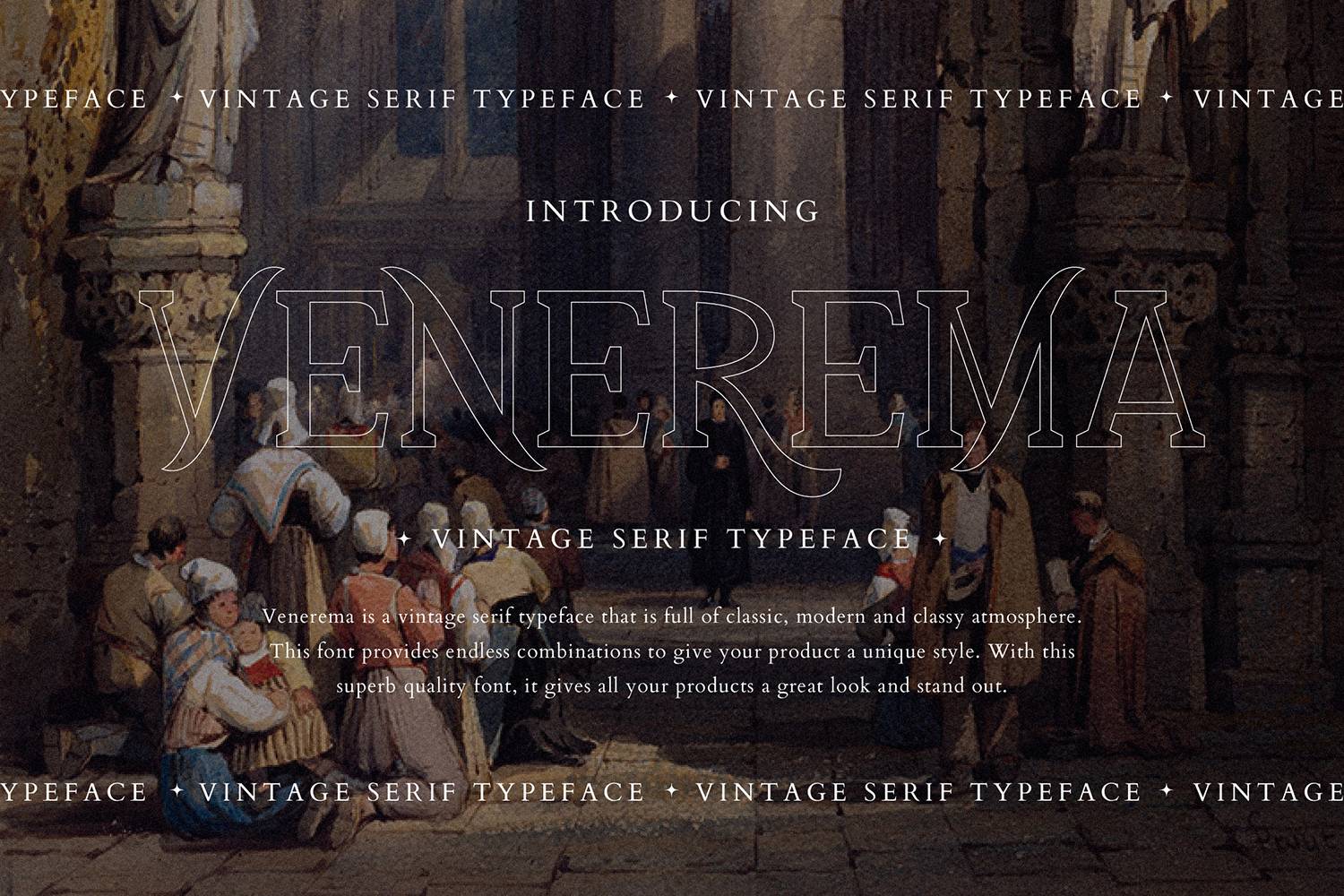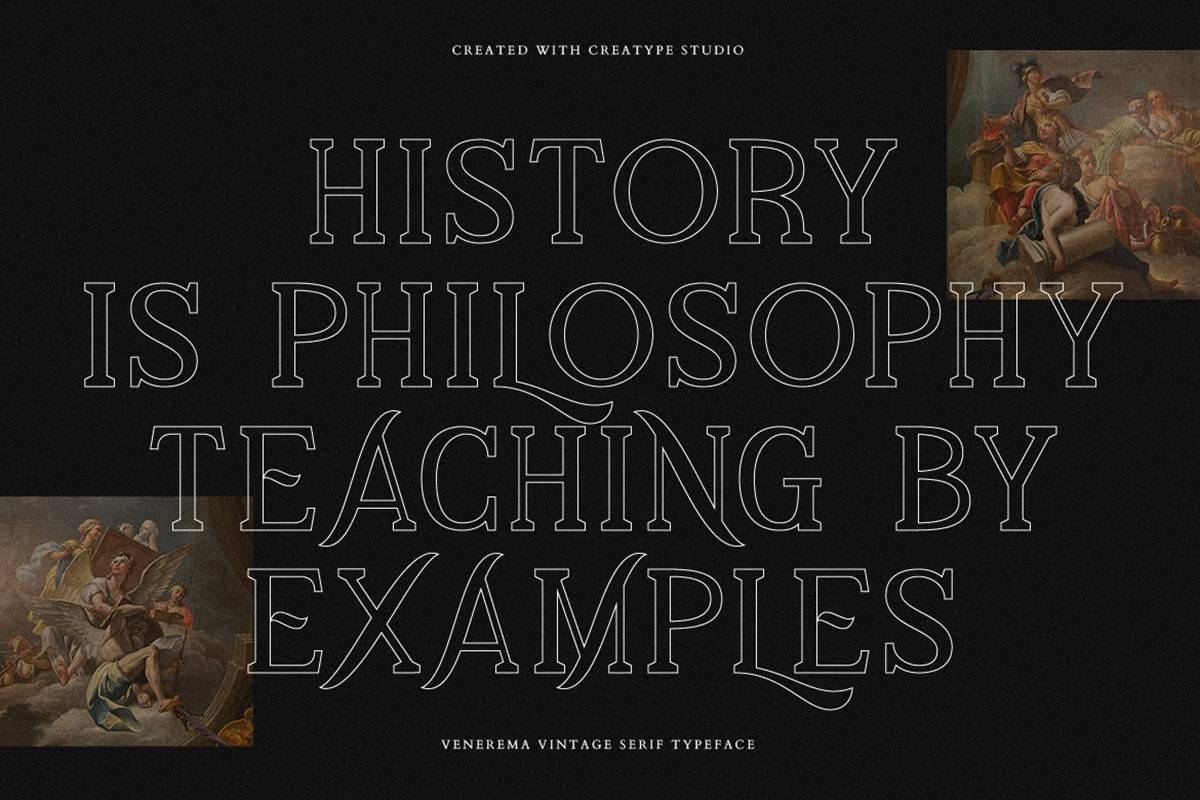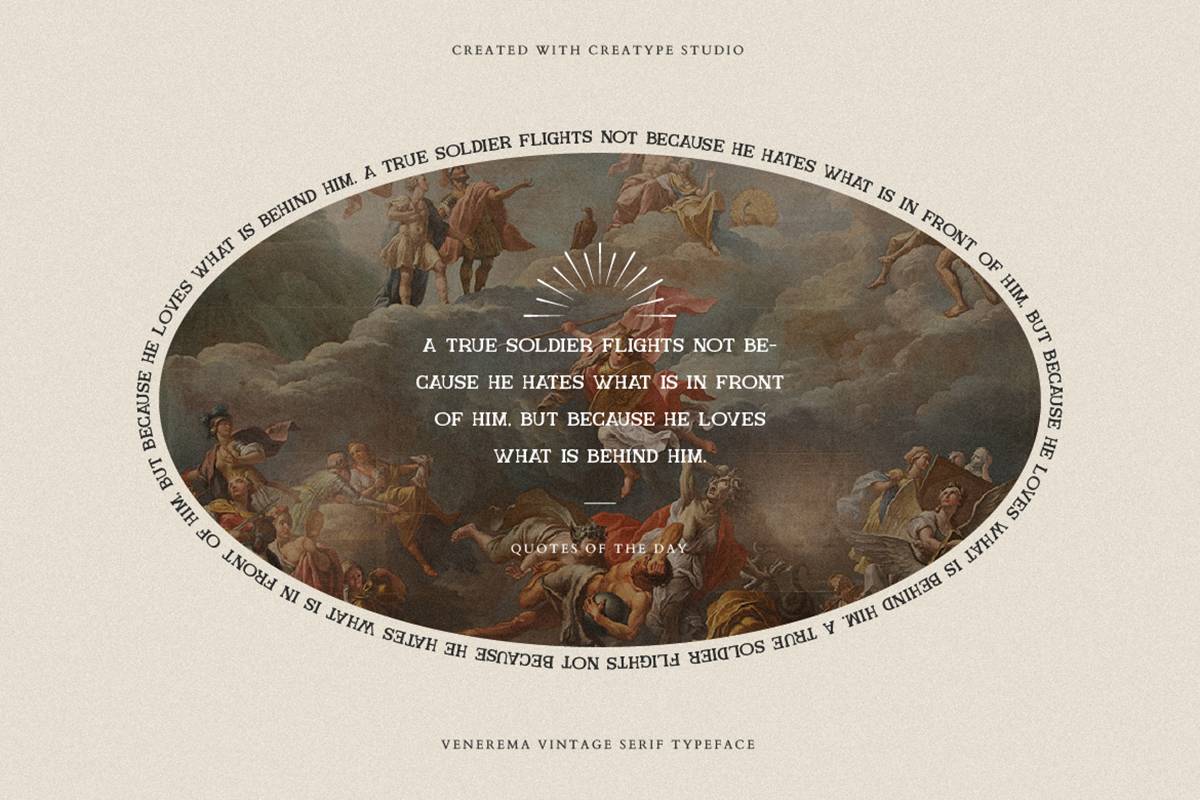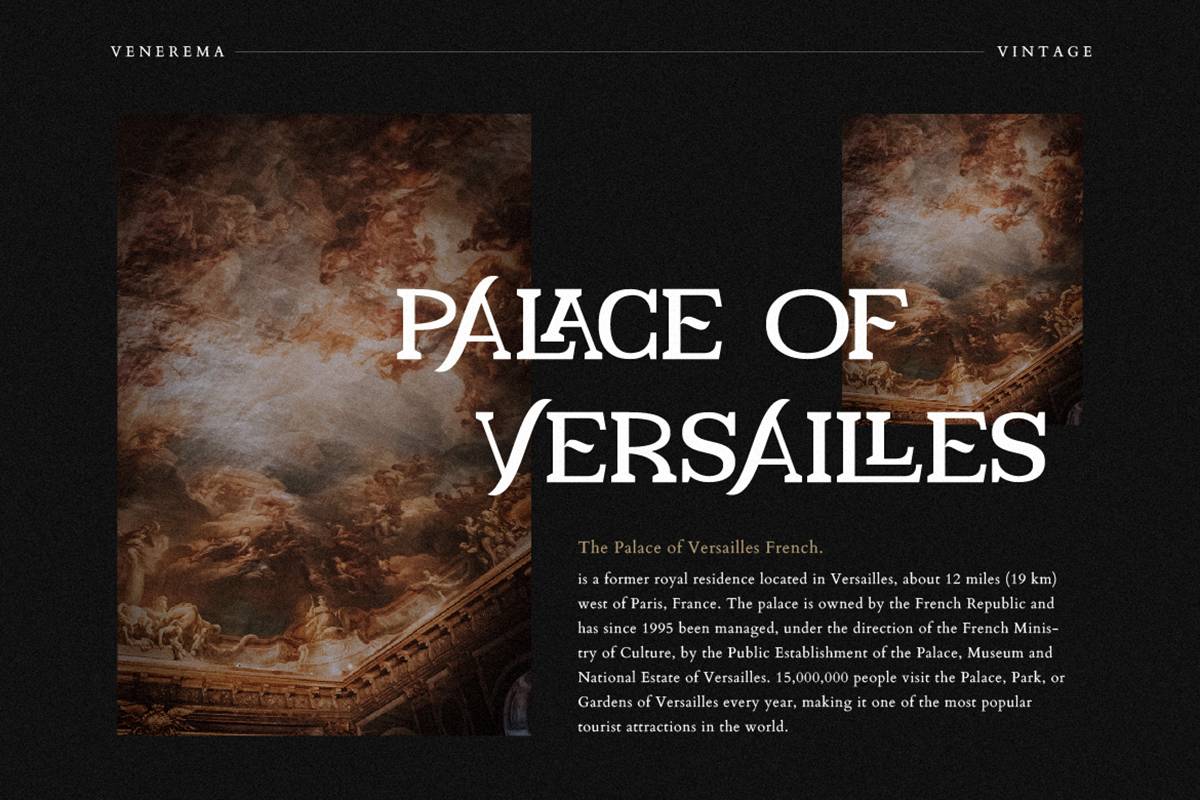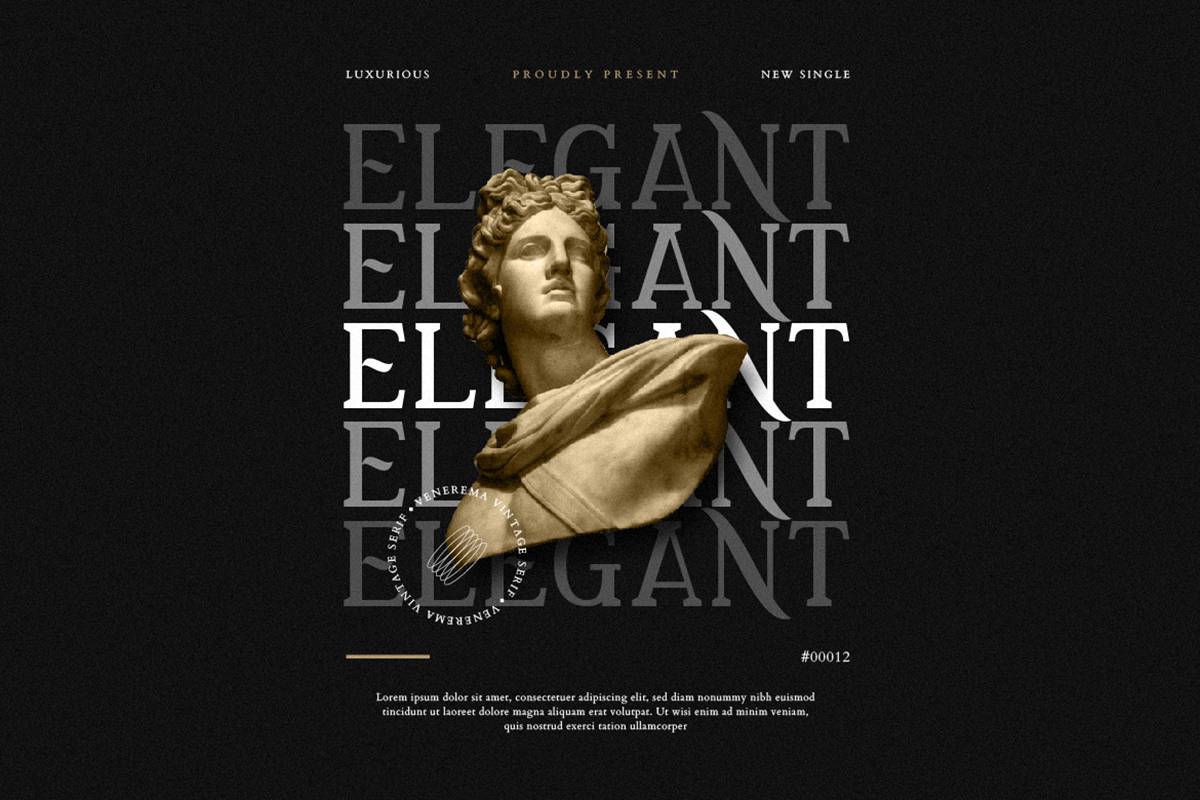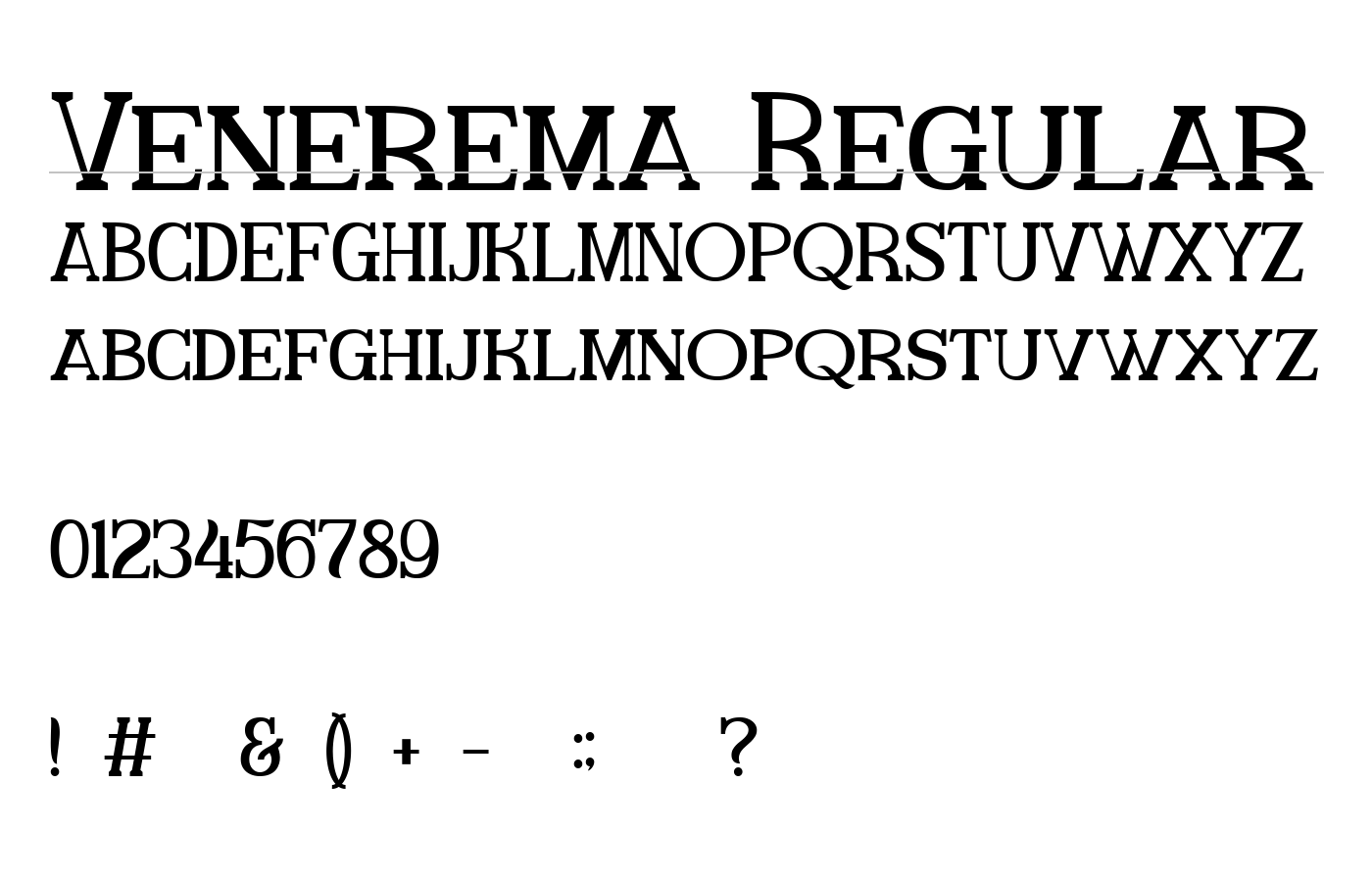
Venerema is a refined serif font characterized by its elegant, slightly condensed letterforms and high contrast between thick and thin strokes, giving it a classic yet distinctive appearance. Its sharp, bracketed serifs and unique details, like the curved tail on the Q and the angled terminals, lend it a sophisticated and timeless feel ideal for upscale branding, editorial headlines, and elegant packaging. This font excels where a touch of tradition meets modern clarity, making it perfect for projects that require a strong, polished presence.
Venerema Font
About Venerema Font
| Font family | Venerema Font |